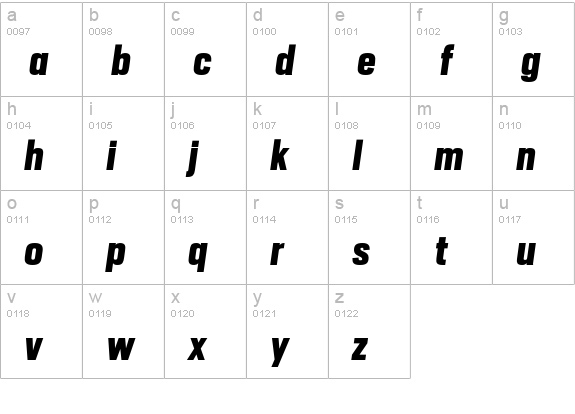
HeronSansCond Bold Italic Font Details
HeronSansCond Bold Italic is a strong, high-contrast, italic variant in the HeronSansCond typeface family \xE2\x80\x94 well suited to headlines, attention-grabbing titles, and strong calls-to-action.
HeronSansCond Bold Italic is a striking and modern typeface that exudes confidence and sophistication. With its bold and slanted design, this font is perfect for making a statement in your designs. Whether you're working on a branding project, advertising campaign, or any other creative endeavor, HeronSansCond Bold Italic will add a touch of elegance and flair. What's more, this font is available for free download at FontsMarket.com. You can easily access and use HeronSansCond Bold Italic in your projects without any cost. Don't miss out on this opportunity to enhance your design work with a versatile and eye-catching typeface. Download HeronSansCond Bold Italic today and let your creativity soar!